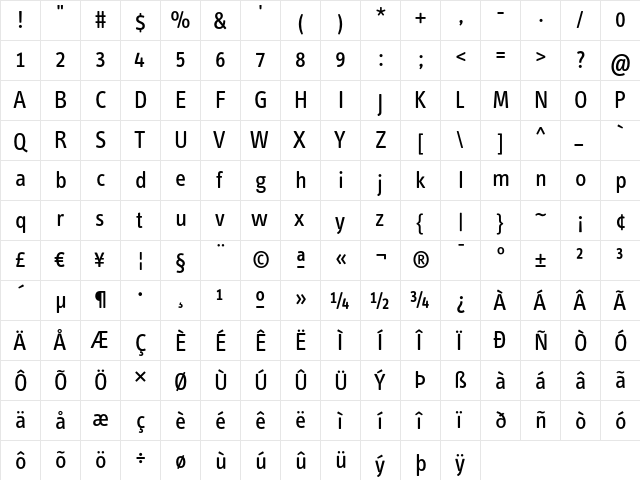
InfoTextBookTf Roman
Design Context for InfoTextBookTf Typeface
InfoTextBookTf takes a measured approach to typography — its balanced proportions and neutral character make it a reliable workhorse for both digital and print work.